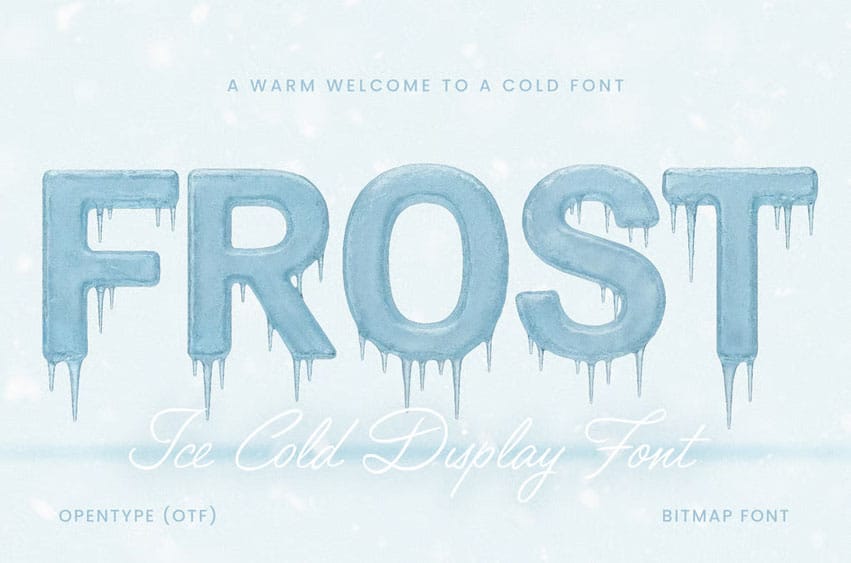
Frost Font is an ice-themed display font designed to bring a blast of winter magic to your creative projects. Each letter is sculpted with ice textures and realistic icicles. The result is a bold, chilling effect perfect for atmospheric headlines, advertisements, and social media.
Perfect for:
- Winter festival posters
- Holiday event invitations
- Christmas & New Year graphics
- Cooling & refrigeration branding
- Ice cold beverage ads
- Winter-themed movie title cards